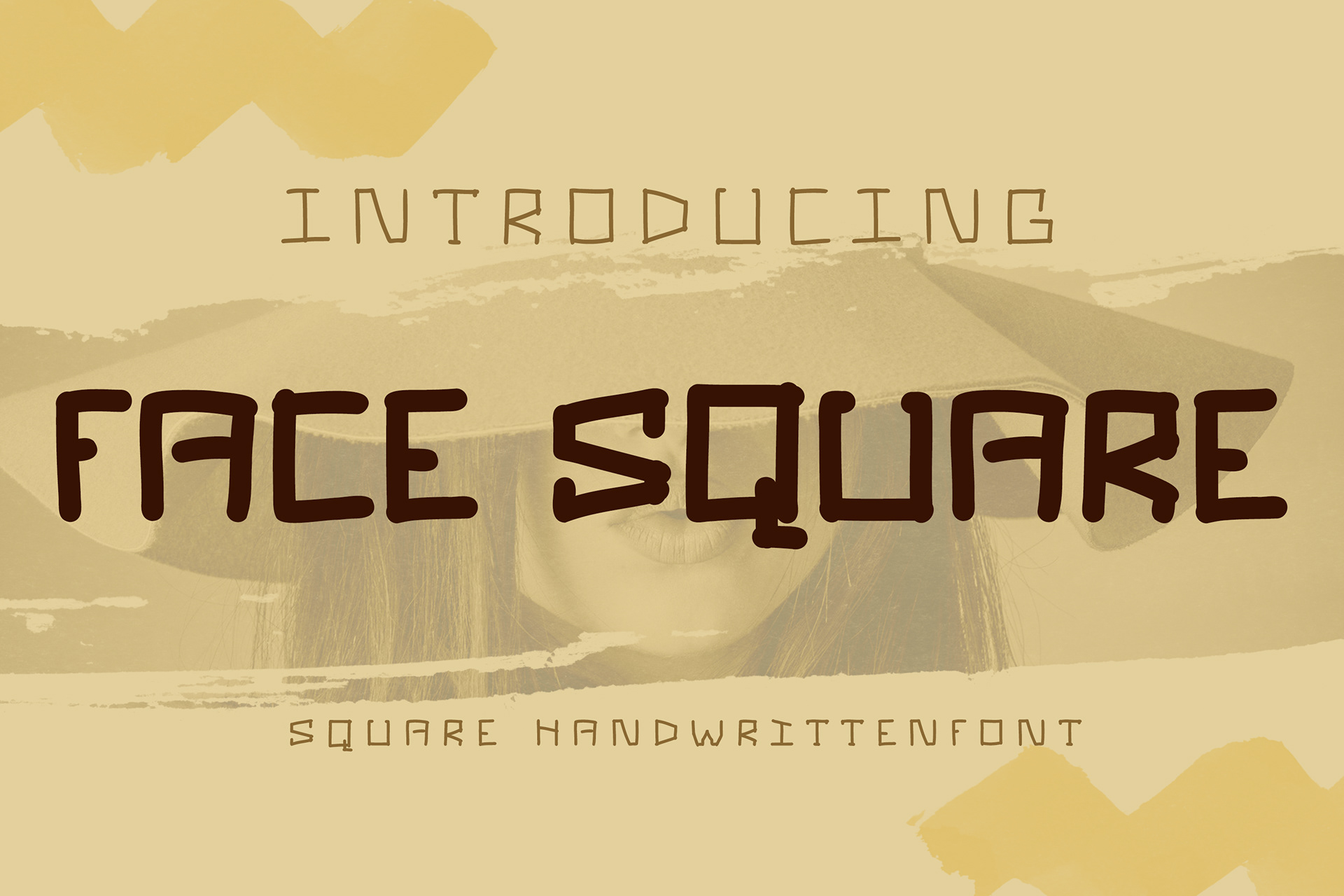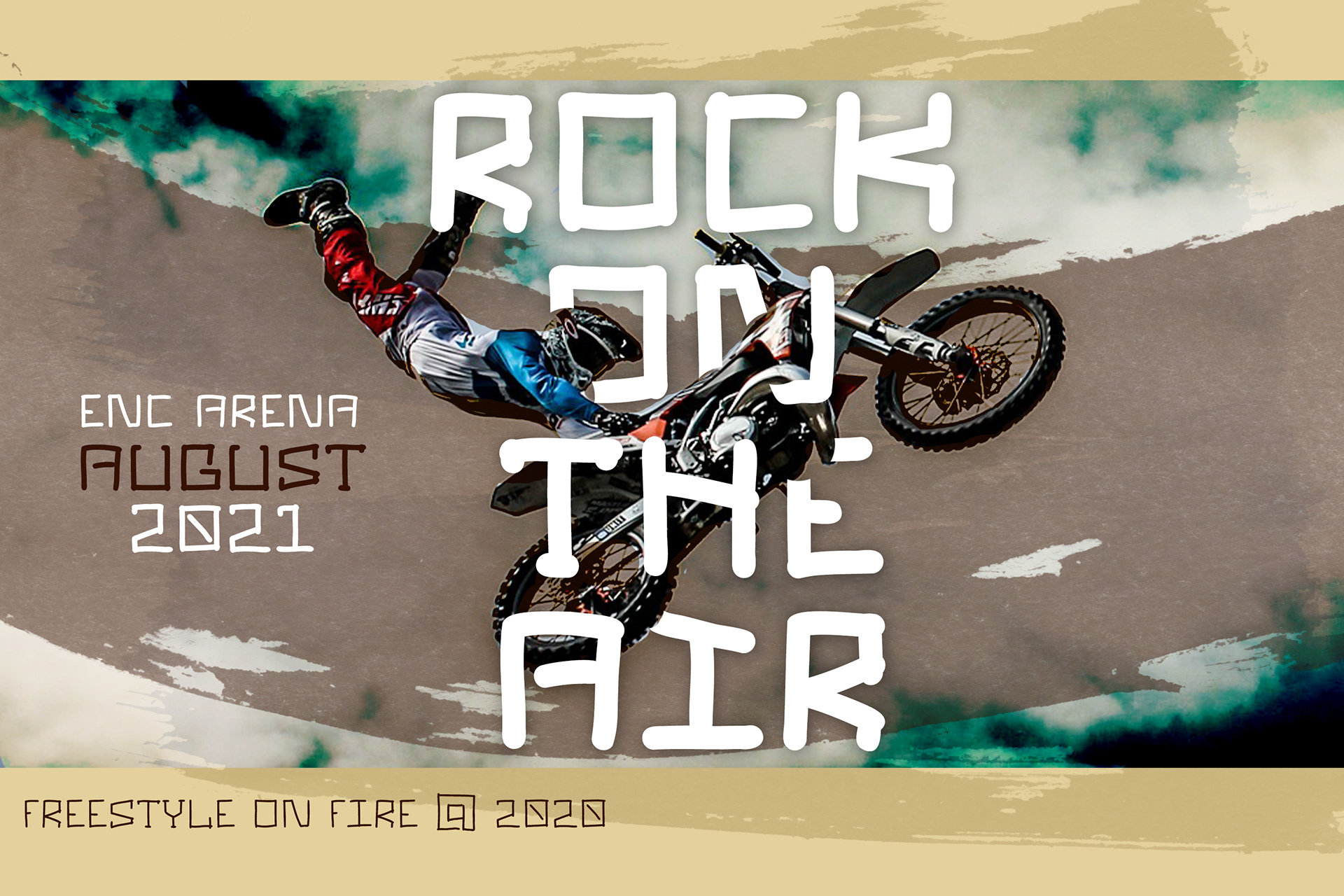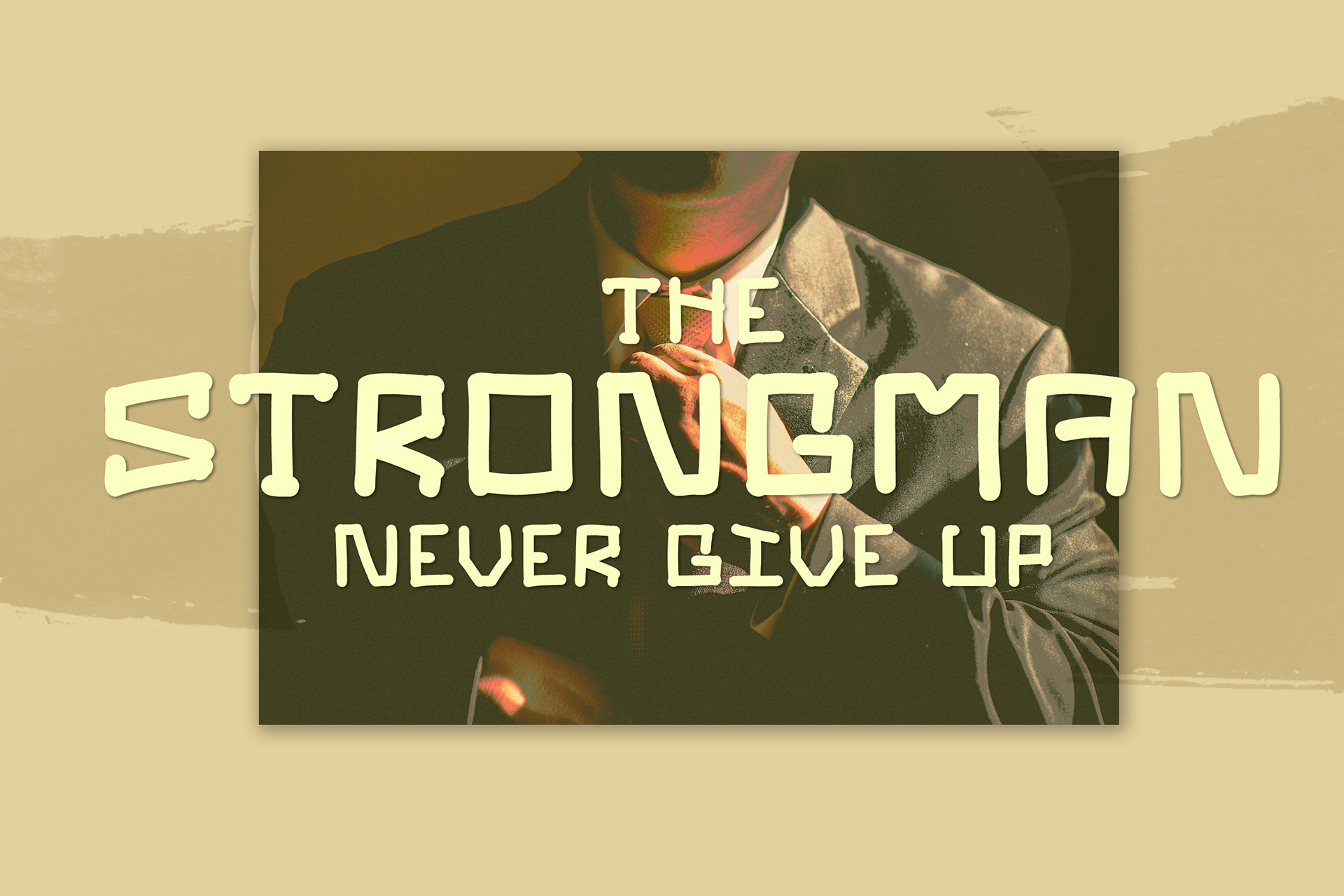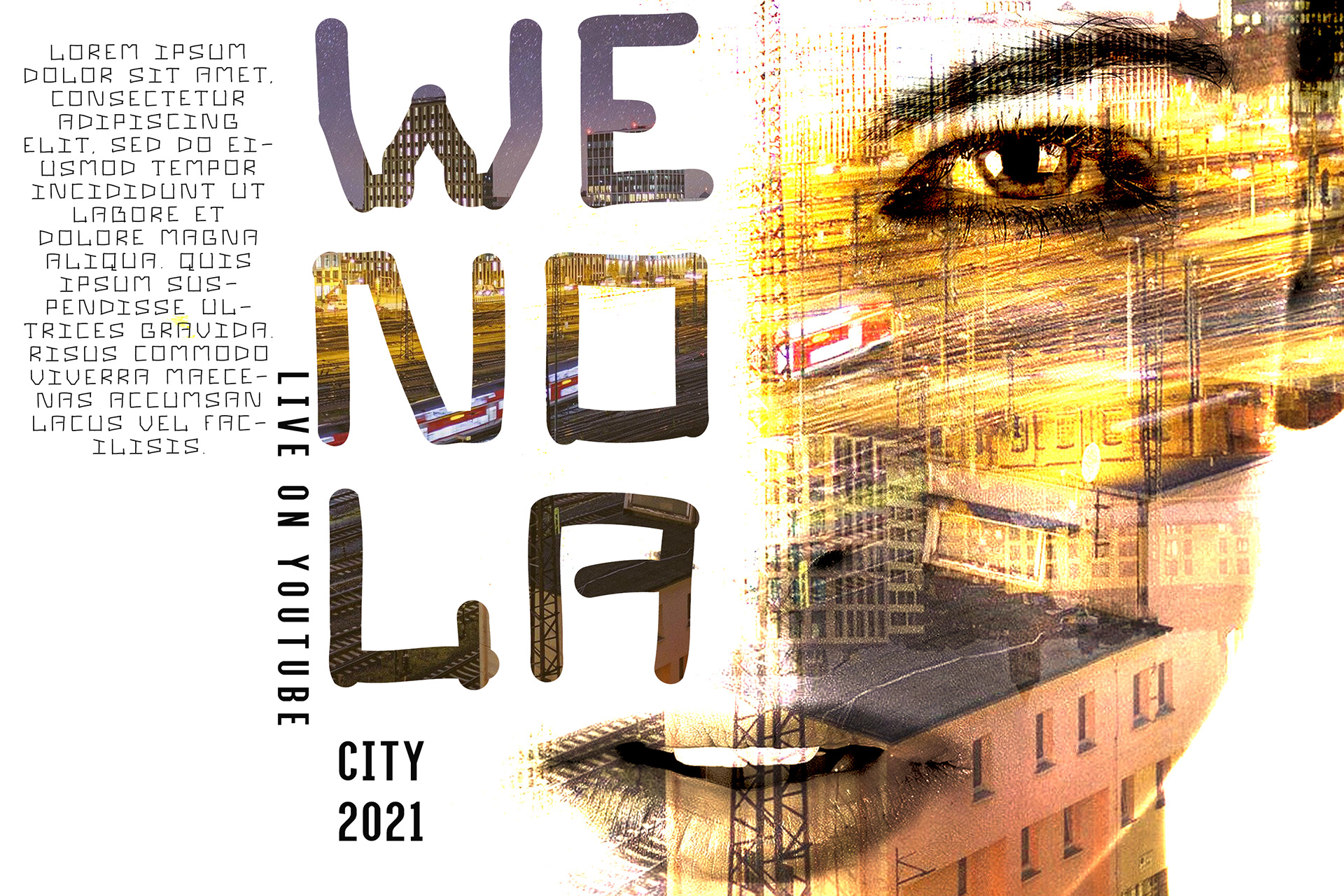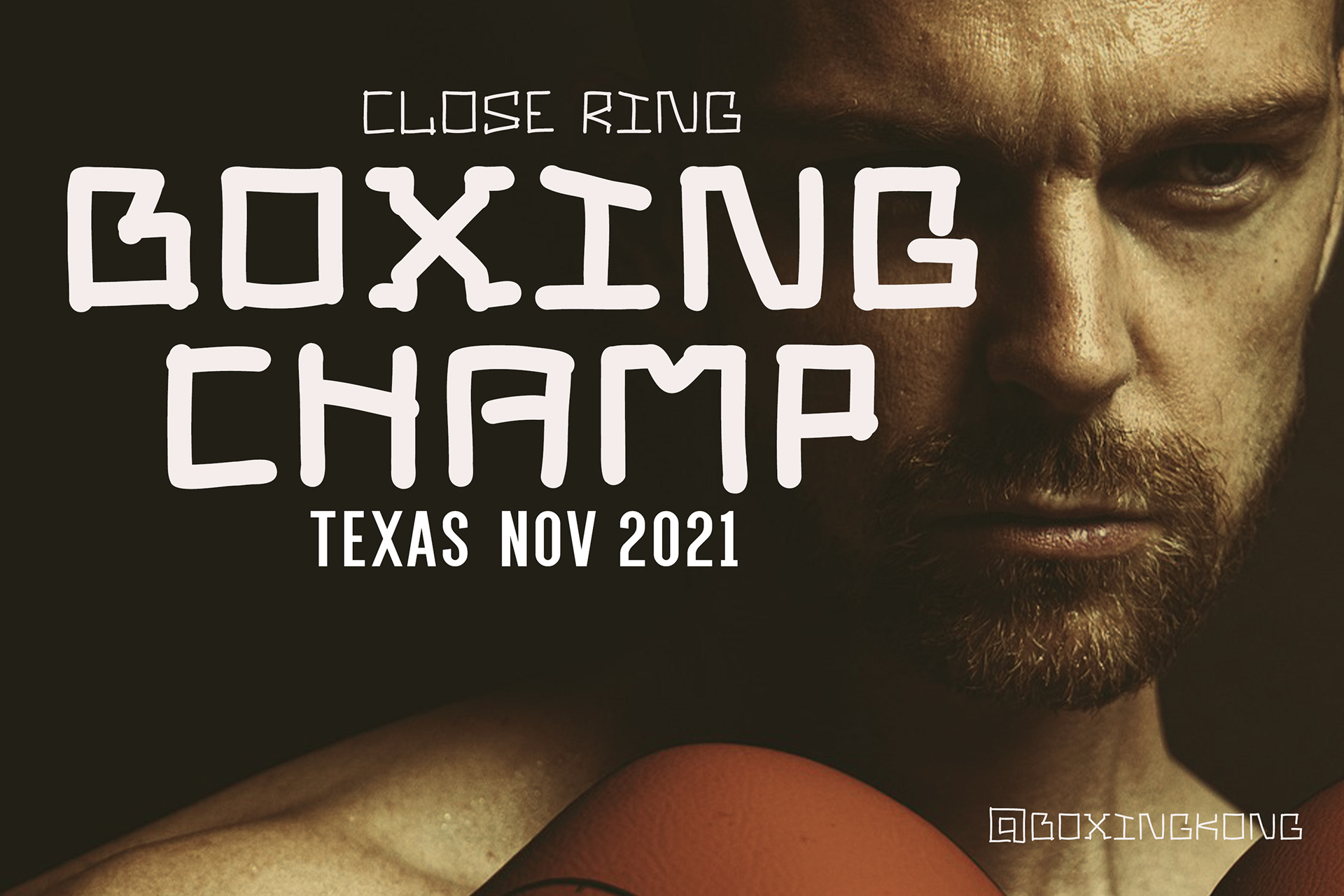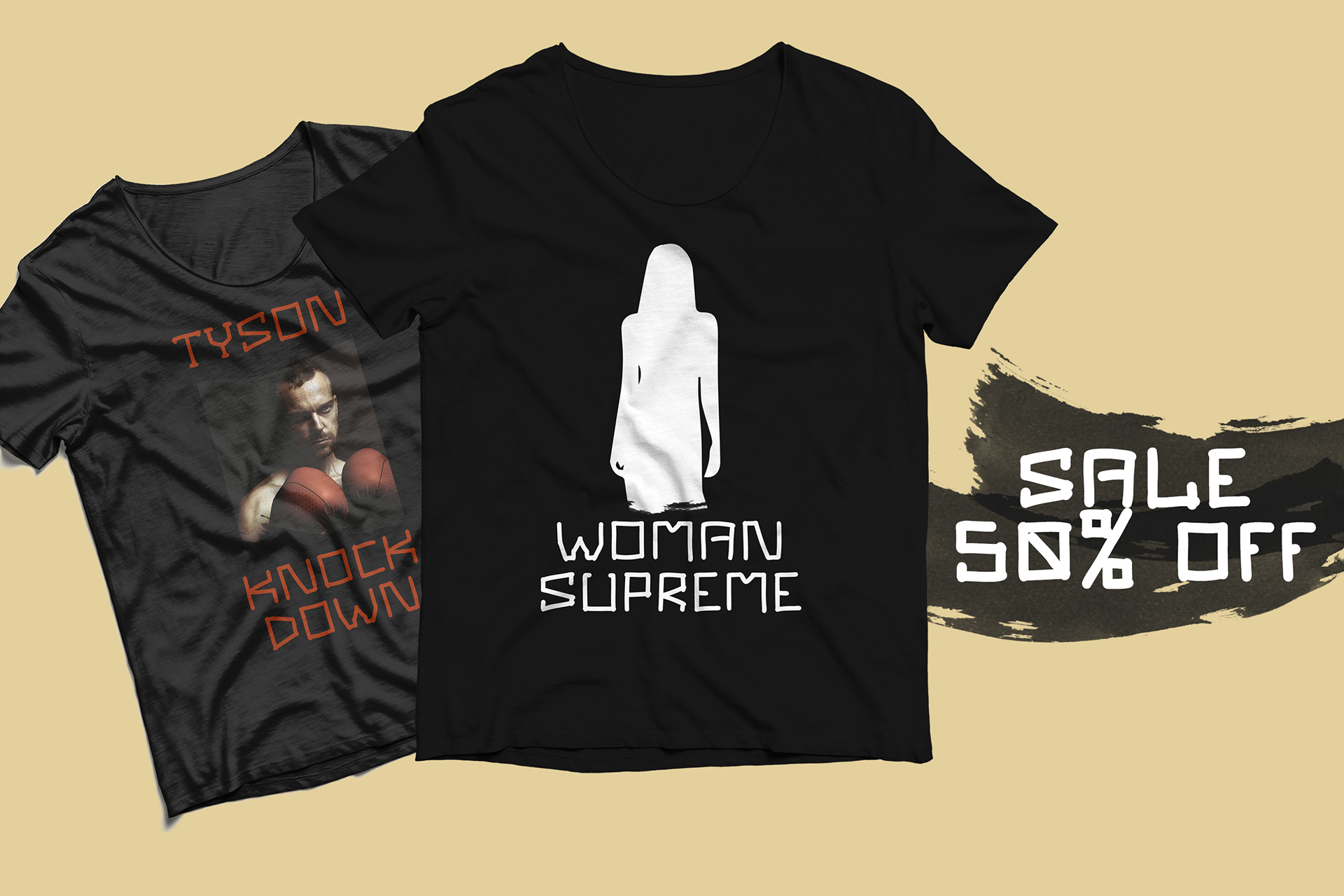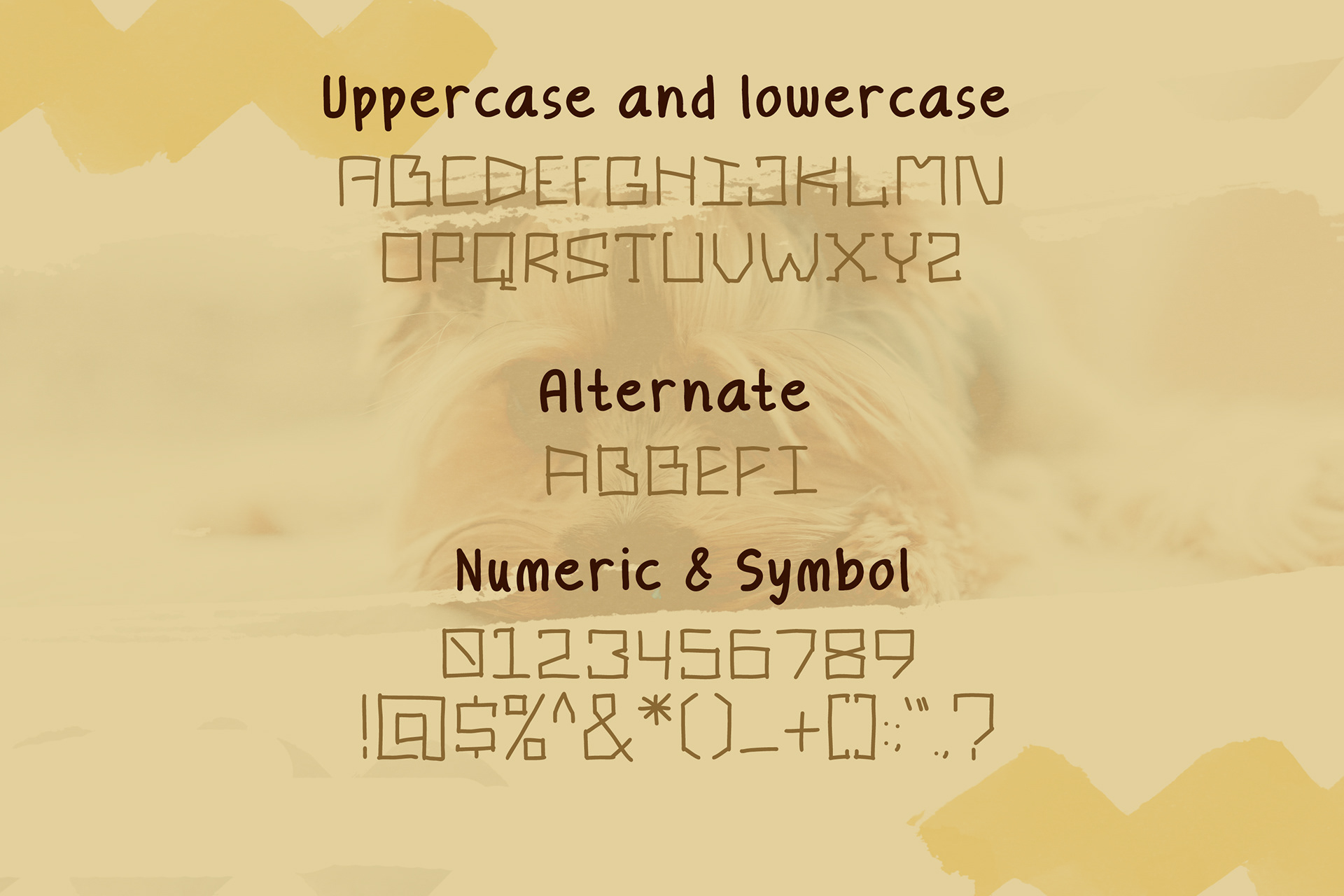
Face Square Font
Face Square Font is playful handwritten stylish font with line looks casual, stylish and elegant and Fun.
Face Square Font perfect for branding projects, logo, wedding designs, social media posts, advertisements, product packaging, product designs, label, photography, watermark, invitation, stationery and any projects that need Playful Font.